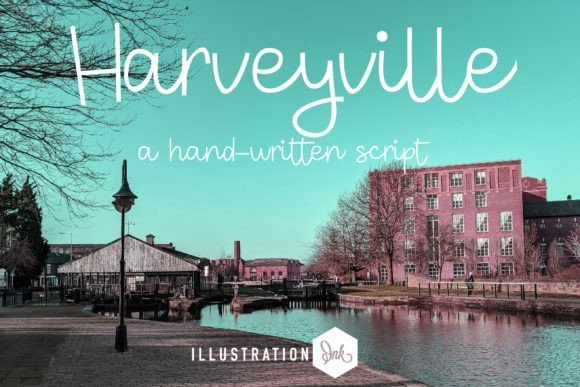
Introduction to Harveyville Font
This fun hand-crafted script is a casual cursive that is great for any project.
The characters flow beautifully into each other to create a whimsical and splendid feel .